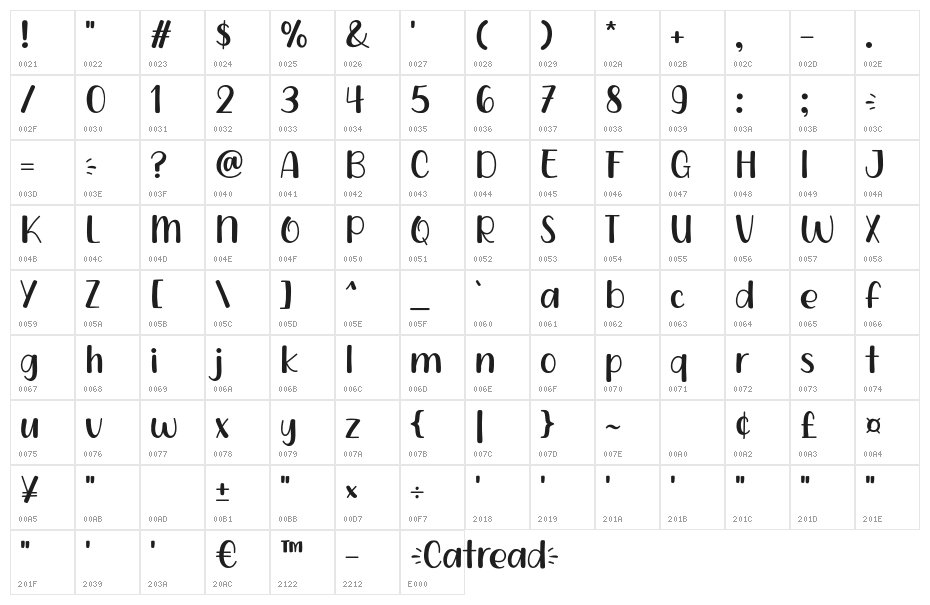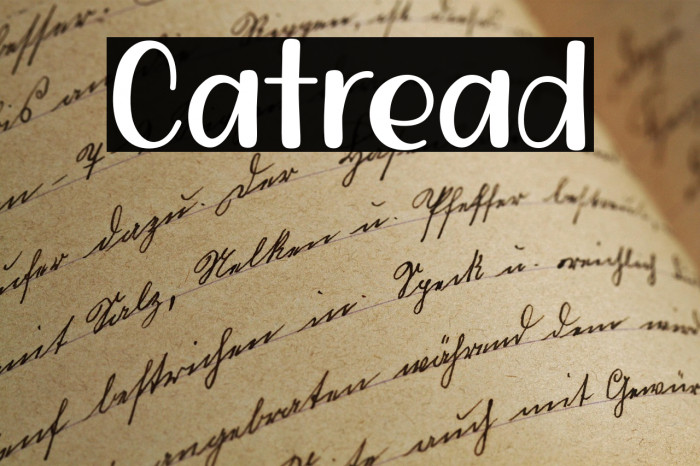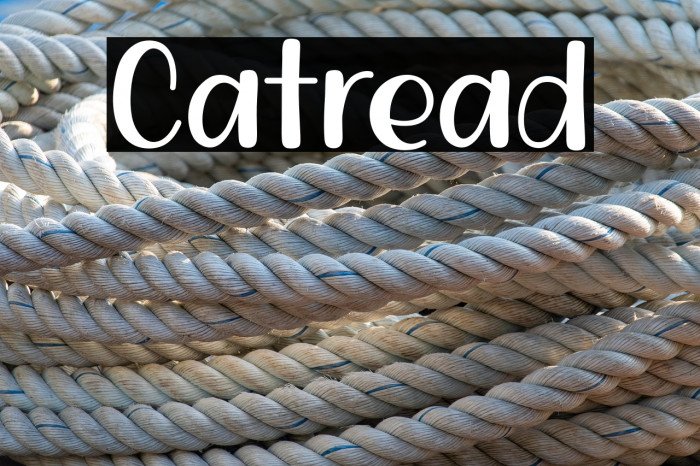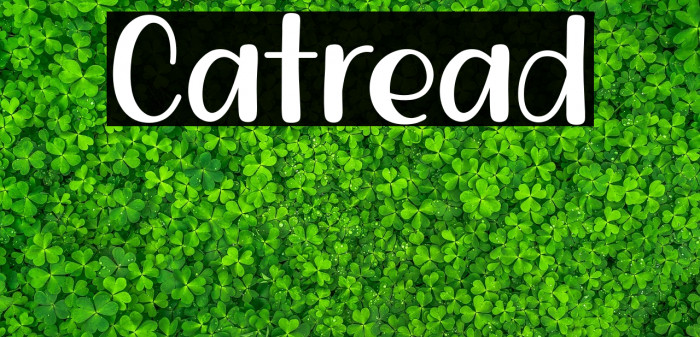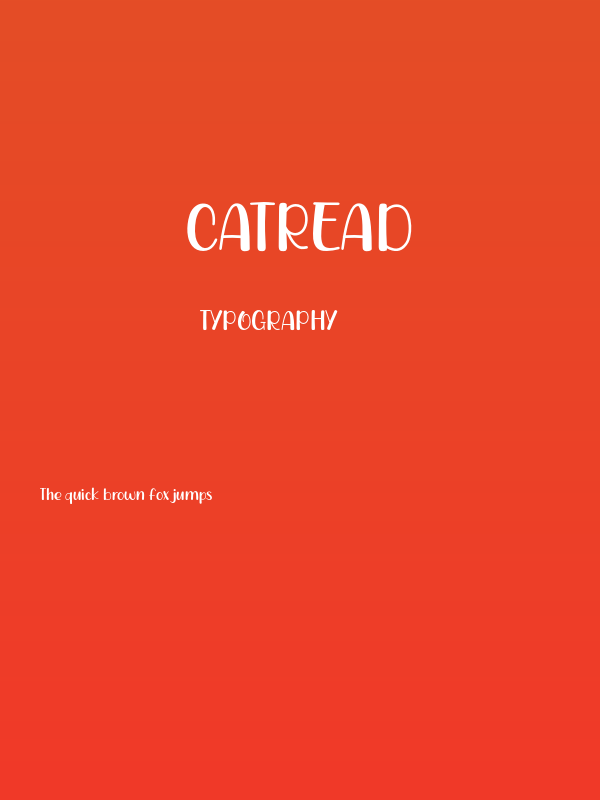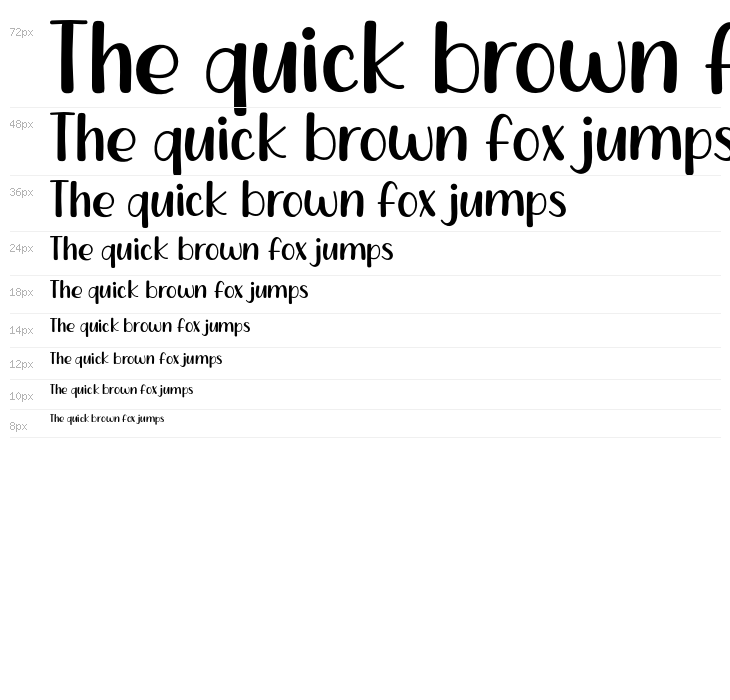
Catread Font
Catread Description
This playful and whimsical font features a handwritten style with bold, rounded strokes that give it a friendly and approachable appearance. The uppercase letters are slightly taller than the lowercase, maintaining a consistent width throughout. The characters have a smooth flow, with some letters exhibiting unique curves and loops that add to its charm. The numbers and special characters are designed to match the overall style, ensuring a cohesive look. This font's informal and lively nature makes it suitable for creative and casual projects.
| Overall Style | Playful |
| Use Case | Headlines, Logos, Informal Text |
| Proposed Projects | Ideal for children's books, greeting cards, playful branding, and social media graphics. |